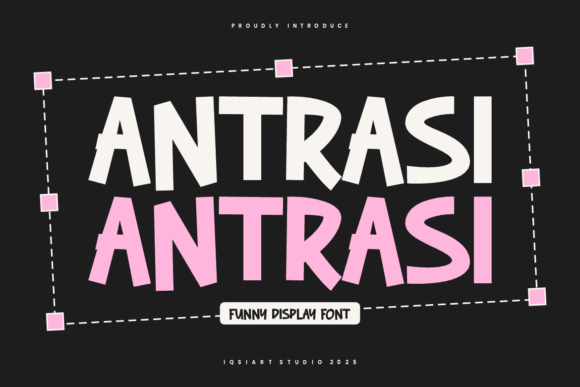
Bring Playful Energy to Your Designs with Antrasi Font
In the world of typography, fonts play a crucial role in conveying the tone and personality of a brand or design. If you’re looking for a font that can add a dash of playfulness and whimsy to your projects, look no further than Antrasi Font. This fun and quirky display font is perfect for creatives who want to make their designs stand out from the crowd.
The Unique Charm of Antrasi Font
Antrasi Font boasts an unmistakable retro charm that is sure to capture the attention of your audience. Its irregular letter shapes and dynamic tilt give it a lively and energetic feel, making it perfect for headlines, titles, and branding projects. The font’s bold style and playful attitude make it an excellent choice for designers who want to add a touch of personality to their work.
Antrasi Font is incredibly versatile and can be used for a wide range of design projects. Whether you’re working on a poster, children’s book, product packaging, or social media graphics, this font is sure to make your design pop. Its playful energy and quirky charm make it perfect for projects that require a bit of whimsy and fun.
Key Features of Antrasi Font
- Irregular letter shapes: Antrasi Font features irregular letter shapes that give it a unique and playful feel.
- Dynamic tilt: The font’s dynamic tilt adds to its energetic and lively personality.
- Bold style: Antrasi Font is a bold font that is perfect for making headlines and titles stand out.
- Retro charm: The font’s retro charm makes it perfect for designs that require a touch of nostalgia and whimsy.
Why Choose Antrasi Font?
So, why choose Antrasi Font for your design projects? Here are just a few reasons:
- Stand out from the crowd: Antrasi Font is a unique and playful font that is sure to make your designs stand out from the crowd.
- Add personality to your designs: The font’s bold style and playful attitude make it perfect for adding personality to your designs.
- Perfect for creative projects: Antrasi Font is perfect for creative projects that require a bit of whimsy and fun.
- Easily readable: Despite its playful nature, Antrasi Font is easily readable, making it perfect for use in a variety of design projects.
Tips for Using Antrasi Font
Here are a few tips for using Antrasi Font in your design projects:
- Use it for headlines and titles: Antrasi Font is perfect for use in headlines and titles, where its bold style and playful attitude can really shine.
- Experiment with colors: The font’s playful nature makes it perfect for experimenting with different colors and color combinations.
- Pair it with other fonts: Antrasi Font can be paired with other fonts to create a unique and interesting design.
- Use it sparingly: While Antrasi Font is a fun and playful font, it can be overwhelming if used too much. Use it sparingly to add a touch of personality to your designs.
In conclusion, Antrasi Font is a fun and quirky display font that is perfect for creatives who want to add a dash of playfulness and whimsy to their designs. Its irregular letter shapes, dynamic tilt, and bold style make it perfect for headlines, titles, and branding projects. With its retro charm and playful attitude, Antrasi Font is sure to make your designs stand out from the crowd.